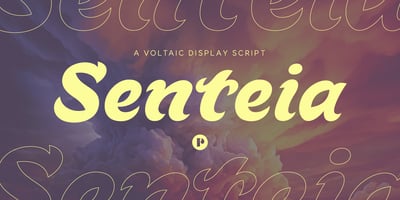
Senteia
Senteia font
Senteia Font Family was designed by Pedro Medina-Leandry and published by Pedroglifos. Senteia contains 3 styles and family package options. A voltaicdisplay dragonEver since I was a kid growing up in the 90s, electricity has captivated my imagination. The sight of lightning, with its striking shapes, was everywhere –from logo motifs to video games and movies. Even fonts inspired by its buzzed shape were commonplace. With Senteia, I set out to channel my childhood fascination into a unique typeface of my own. Upon reviewing existing electric fantasy fonts, I was shocked (pun intended) to find that most fell into the same category: sharp angles. Determined to bring a fresh perspective, I infused Senteia with the fluid motion of handwriting. The result? An organic approach to capturing the essence of electrical manifestation. In addition to the main zappy style, Ruidosa, I introduced Calmada –a more subtle variation –and its finer counterpart, Fina. Together, they’re poised to electrify daring projects and infuse them with a jolt of excitement.